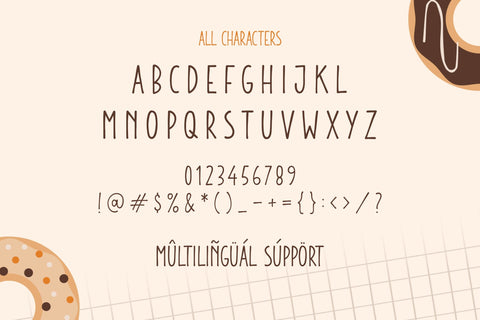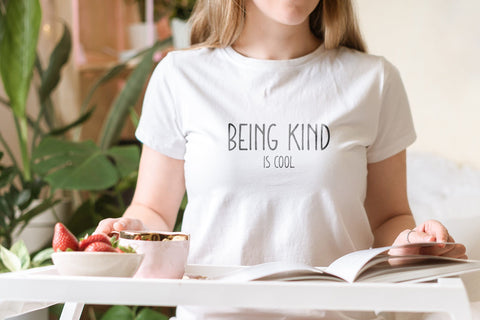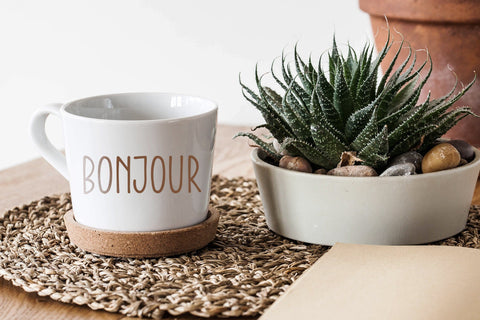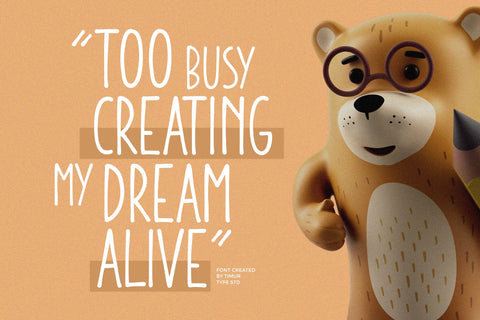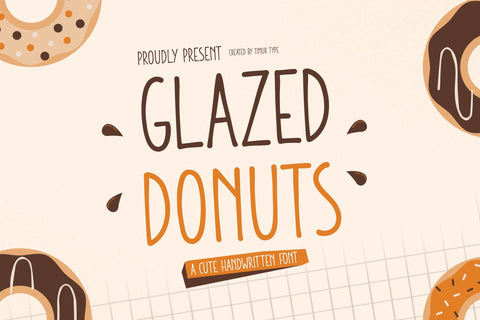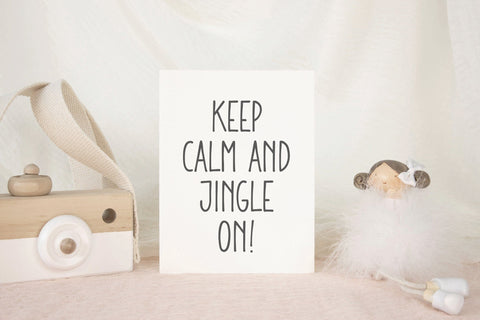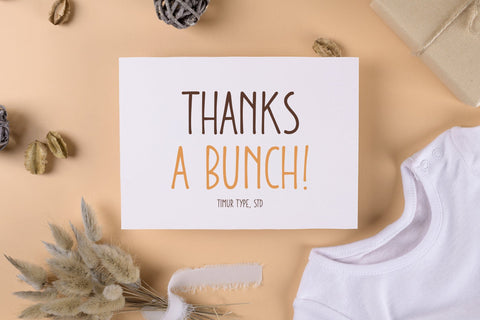
Glazed Donuts - Cute Handwritten Font
Proudly Presenting Glazed Donuts
Glazed Donuts Cute Handwriting The display font created features lines with smooth edges and is small in shape, giving it a distinctive appearance.
This font resembles handwriting. With attention to detail and beautiful strokes in every line, this font adds a touch of sophistication and distinctive style to any design or text it is applied to.
The distinctive nature of small lines makes them perfect for creating attention-grabbing titles, logos, or other elements.
Glazed Donuts Font also supports multilingualism.